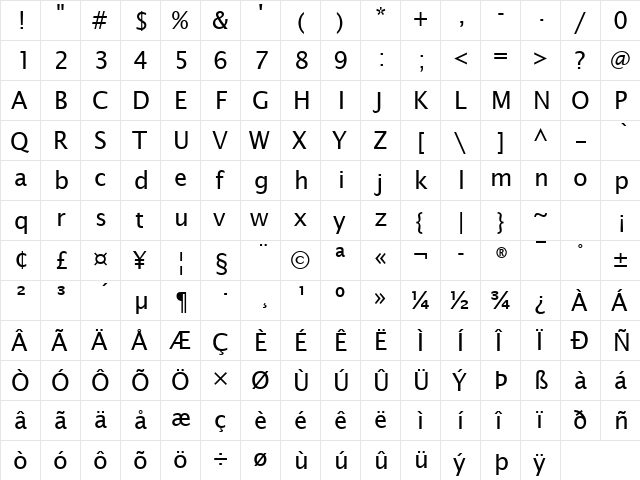
Lucida Sans Regular
| Foundry | Bigelow & Holmes |
| Designer | Charles Bigelow |
Lucida Sans is a composed and adaptable typeface that performs quietly and consistently across a wide range of design contexts.